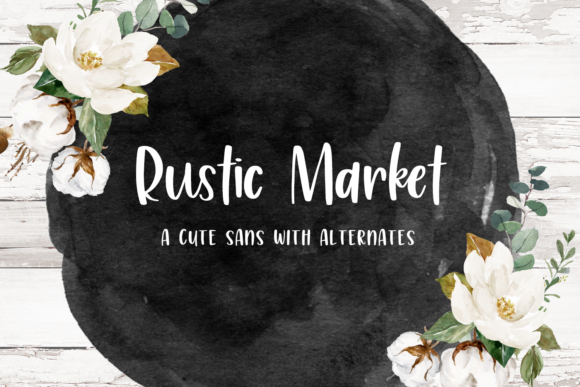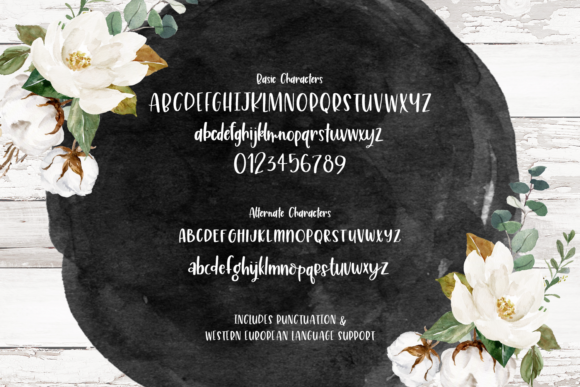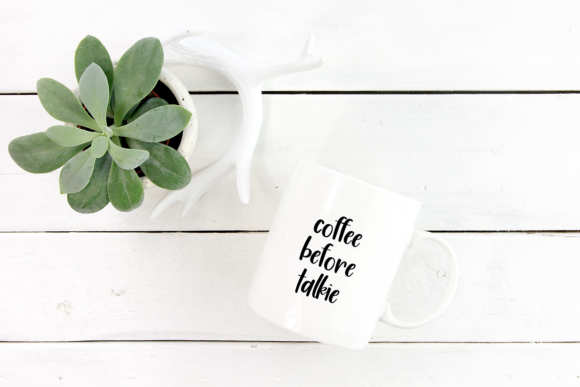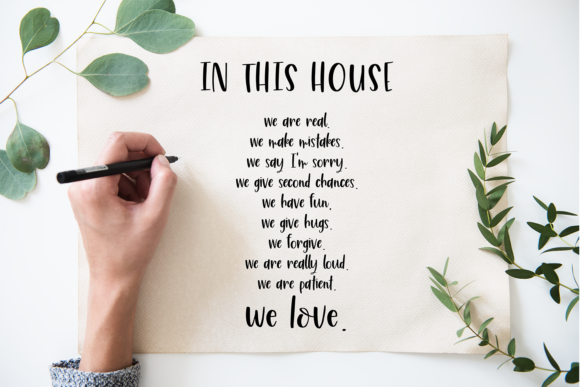
Rustic Market: Embrace the Sweet and Friendly Handwritten Font
Introducing Rustic Market, a font that radiates sweetness and friendliness with its delightful handwritten style. Its natural and unique appearance makes it an incredibly versatile choice for a wide range of designs. Whether you’re creating charming wedding invitations, crafting heartfelt thank you cards, designing playful quotes, captivating logos, or any other project that calls for a handwritten touch—Rustic Market is the perfect companion. With its limitless potential, this font allows your imagination to soar and create designs that stand out with a touch of warmth and authenticity.
The allure of Rustic Market lies in its sweet and friendly vibe. Each letter is thoughtfully crafted to convey a sense of approachability, making your designs feel inviting and heartwarming.
Designing with Rustic Market is a joyful experience. Its natural strokes and unique style bring a touch of authenticity to your creations, making them truly special.
Fall in love with the versatility of Rustic Market. Whether you’re designing for joyous celebrations or expressing heartfelt sentiments, this font effortlessly adapts to suit your creative vision.
Unleash your imagination with Rustic Market. Its endless possibilities allow you to create designs that reflect your personality and evoke emotions in a genuine and heartfelt manner.
Gorgeous designs come to life with Rustic Market’s sweet and friendly style. Whether you’re crafting wedding invitations that enchant or designing logos that leave a lasting impression, this font adds a touch of warmth that resonates with your audience.
In conclusion, Rustic Market is more than just a font; it’s a sweet and friendly masterpiece that invites you to explore the endless possibilities of creativity. Embrace its natural charm, and let it become the heart of your most cherished projects. Whether you’re celebrating love, expressing gratitude, or engaging in any creative endeavor, Rustic Market will be your loyal companion, adding a touch of warmth and authenticity. Allow this font to unlock the full potential of your creativity, and watch as your designs come alive with the sweet and friendly spirit of Rustic Market. The only limit is your imagination!